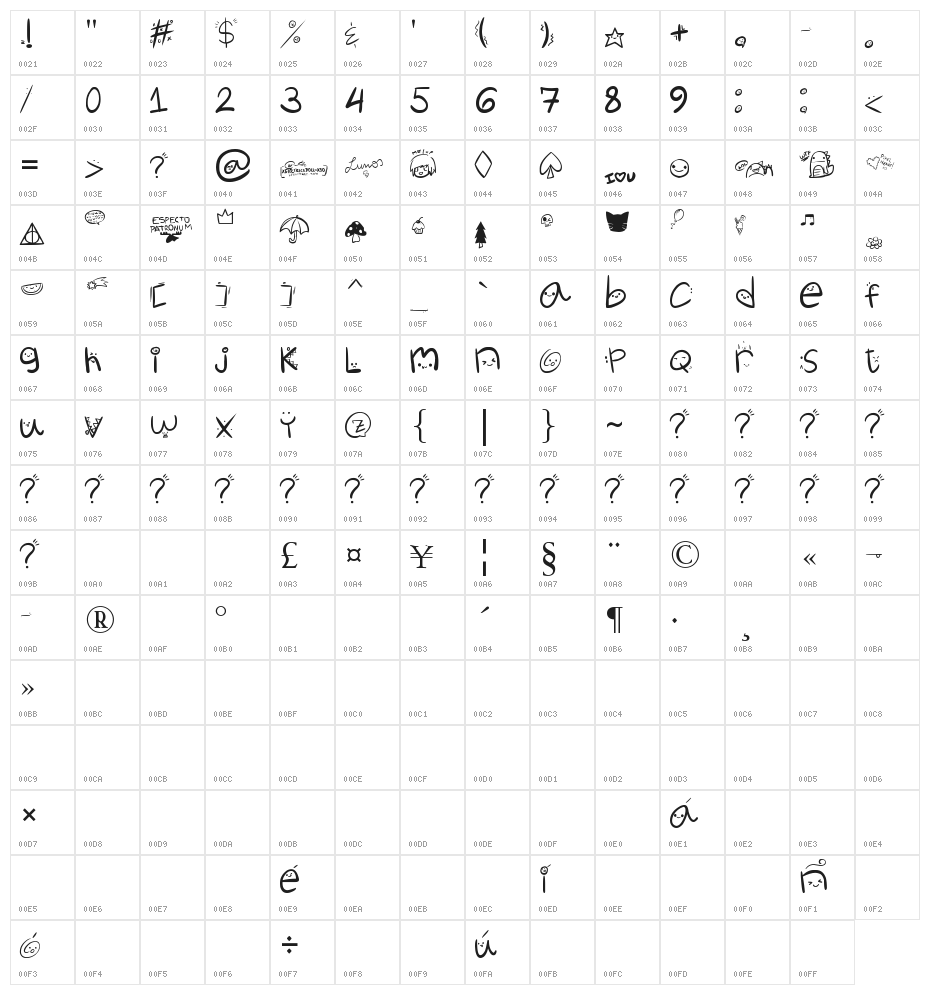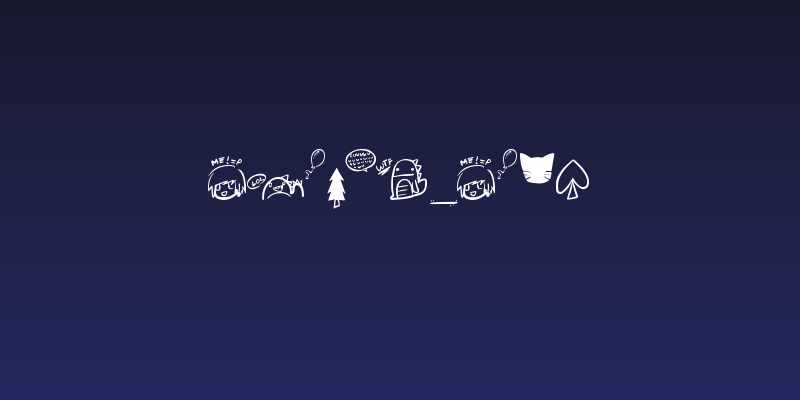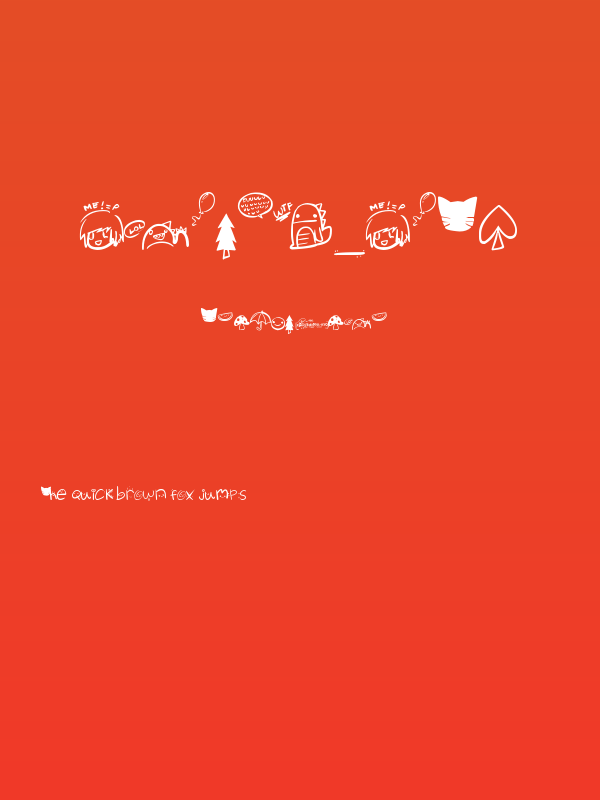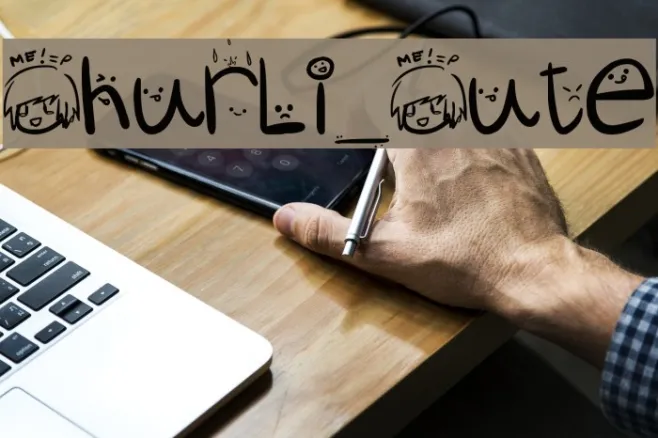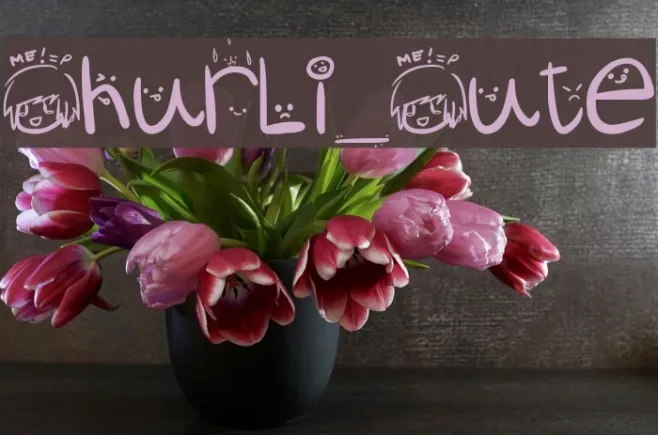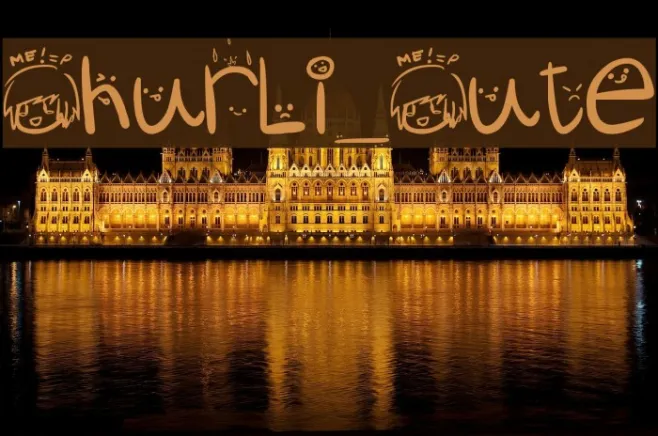
Churli_Cute Font
Churli_Cute Description
This playful and whimsical font features a unique, hand-drawn style with charming, cartoon-like embellishments. Each character is adorned with delightful facial expressions or decorative elements, adding a sense of fun and creativity. The letters are rounded and slightly irregular, contributing to a casual and friendly appearance. The numbers and special characters continue this theme, with quirky designs that maintain the font's overall lighthearted feel. This font is perfect for projects that require a touch of humor and personality.
CHURLI_CUTE UPPERCASE
CHURLI_CUTE LOWERCASE
CHURLI_CUTE OTHER CHARS
| Proposed Projects | Ideal for children's books, playful branding, greeting cards, and creative social media graphics. |